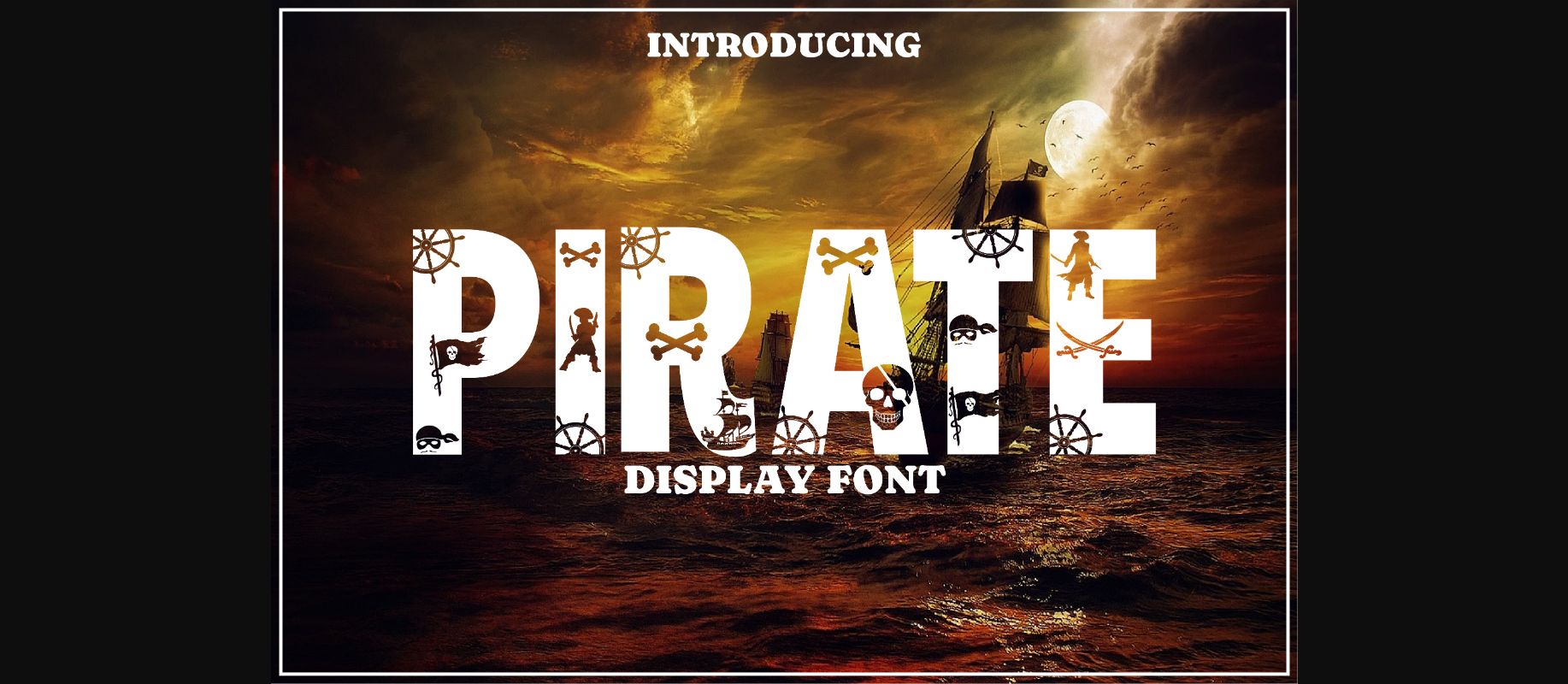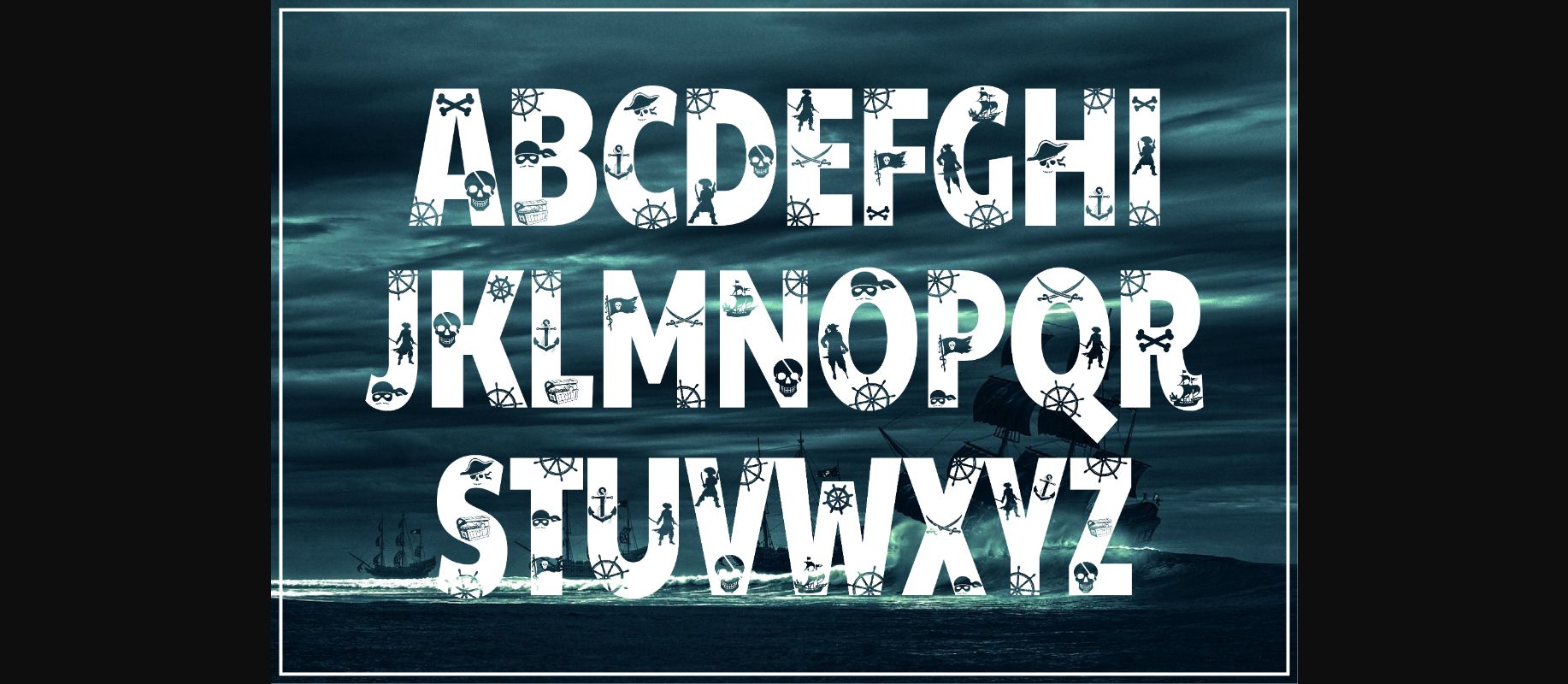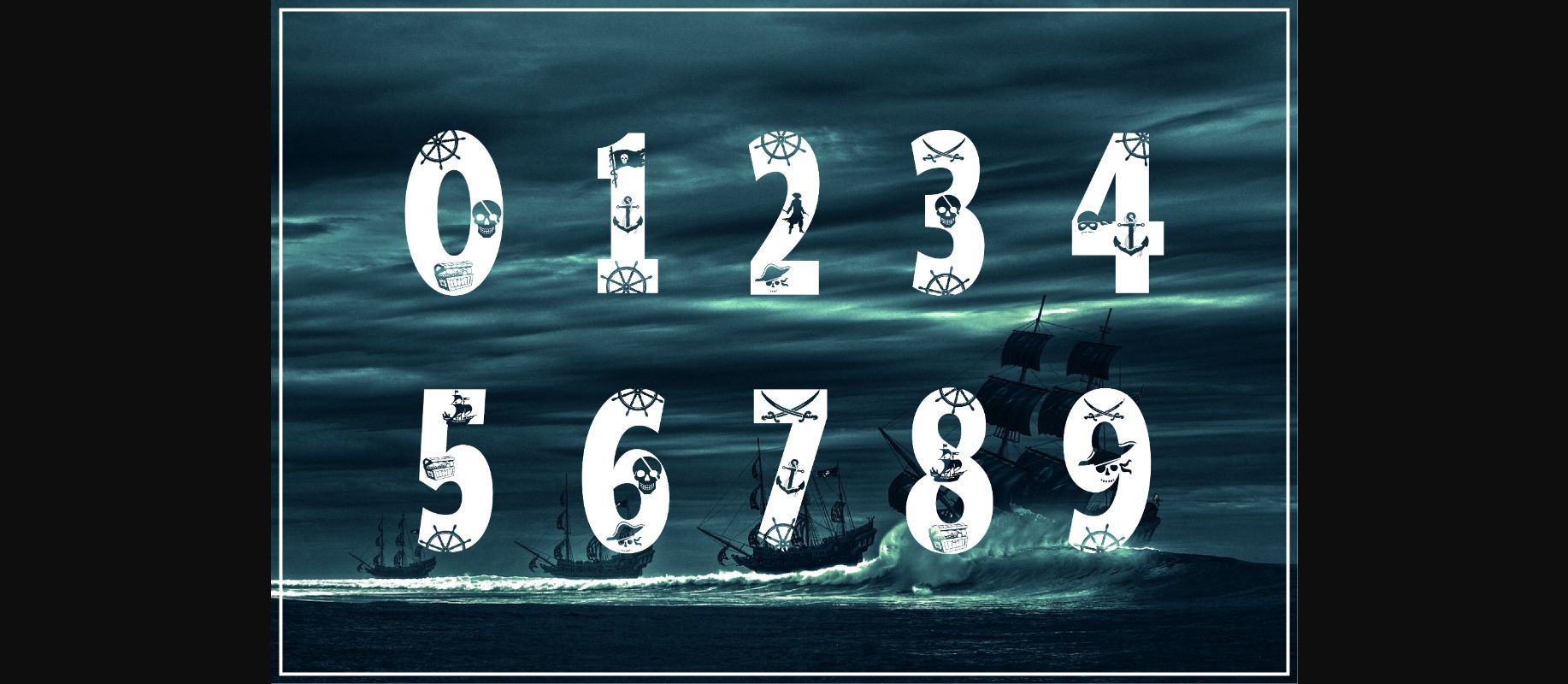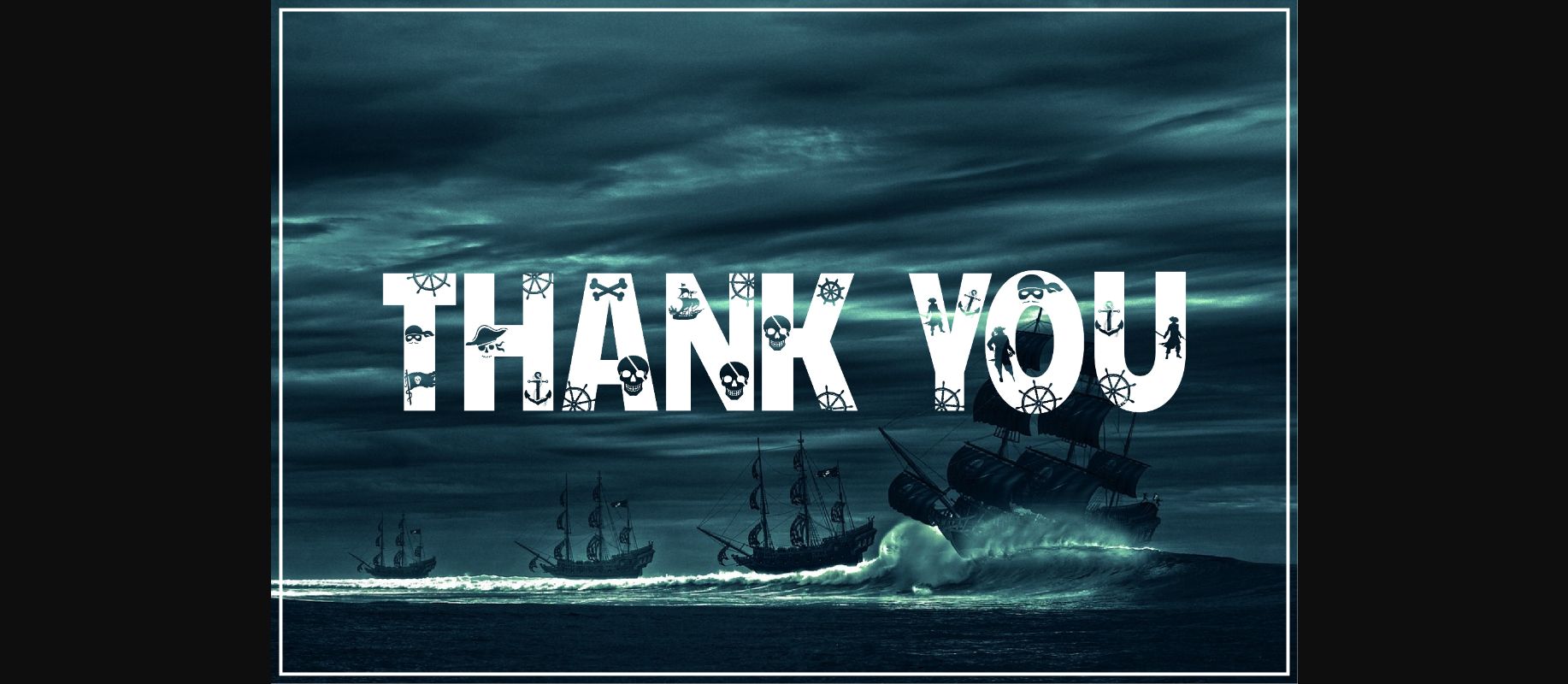
Pirate Font
About Pirate Font
Pirate is a dramatic decorative font. It is perfectly suitable for any design or crafty idea! Add it confidently to your projects and you will love the results!